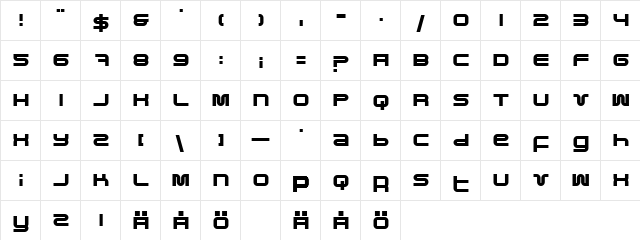
Pfuk Bold
Design Context for Pfuk Typeface
Pfuk is a composed and adaptable typeface that performs quietly and consistently across a wide range of design contexts. Its bold stroke weight gives it real presence on the page.